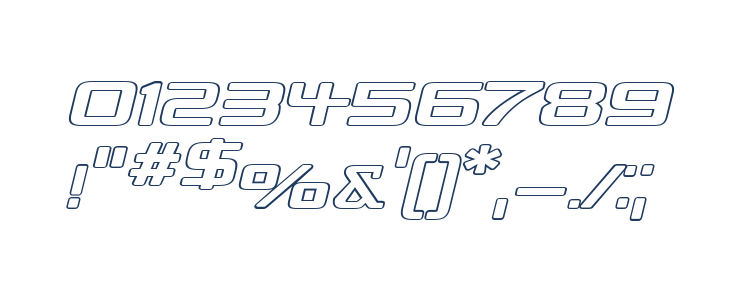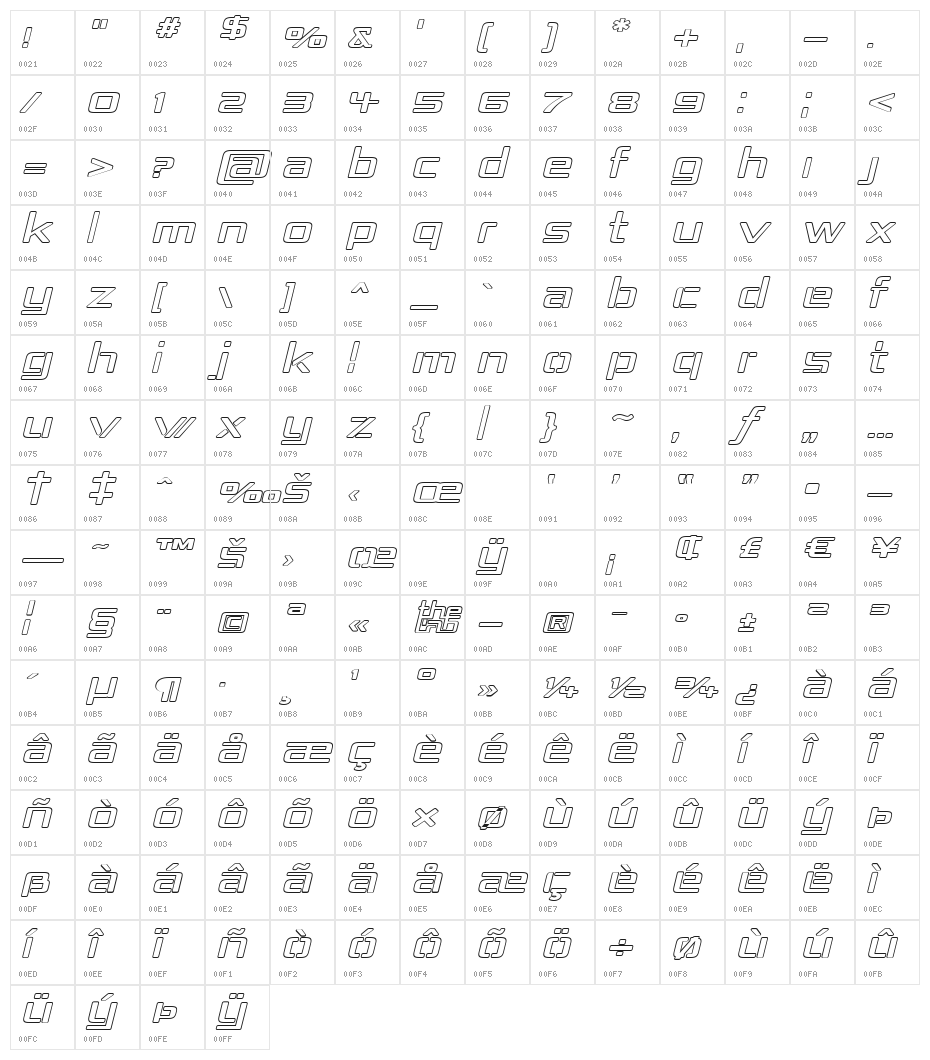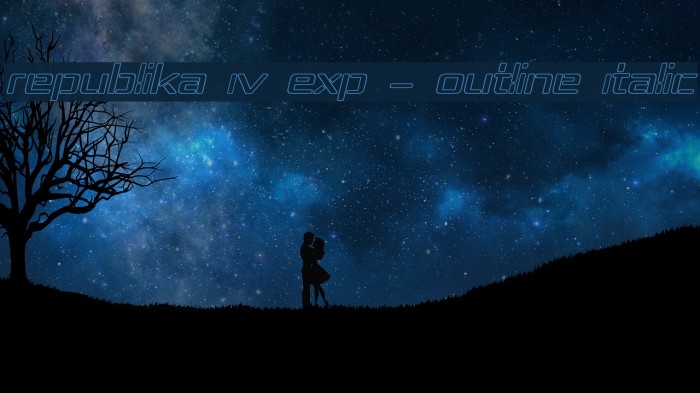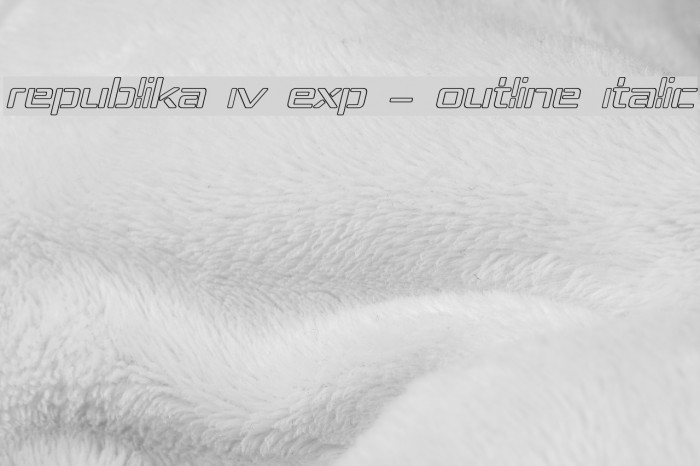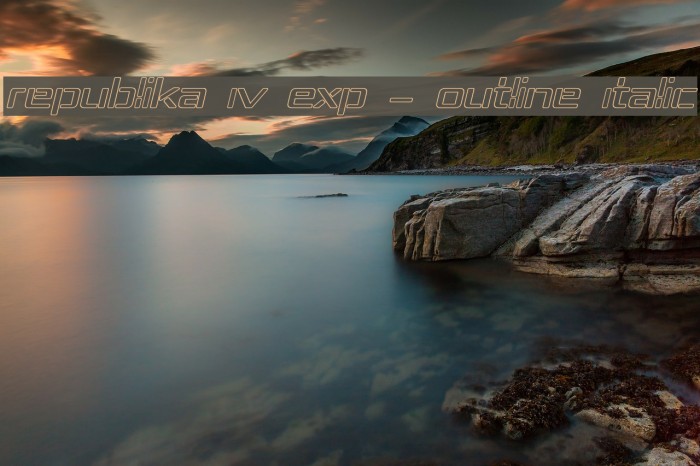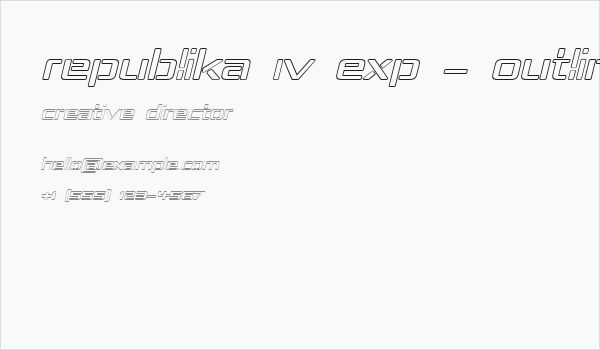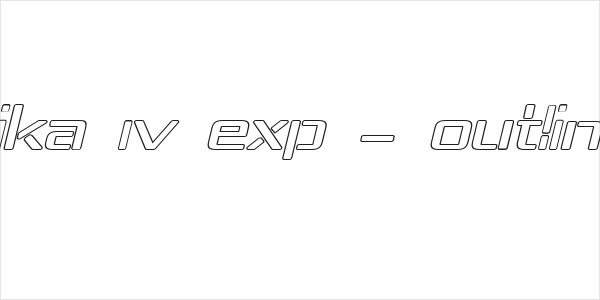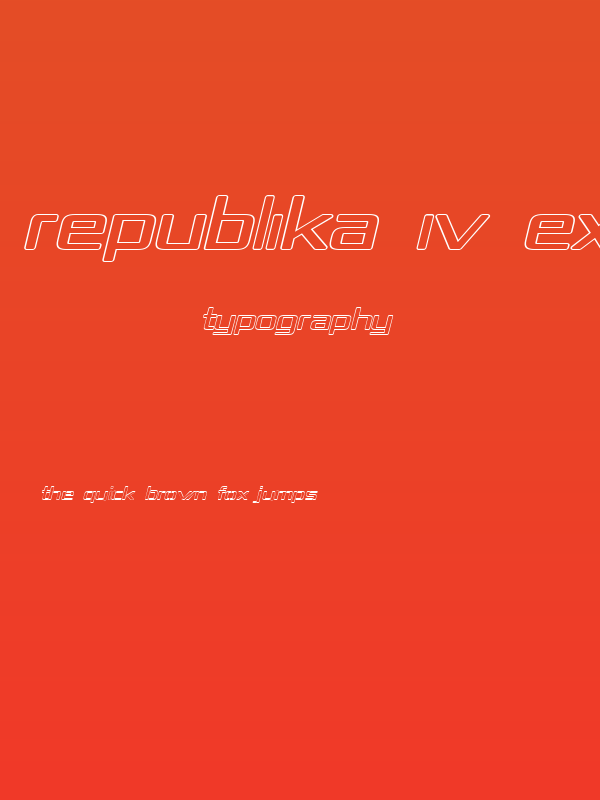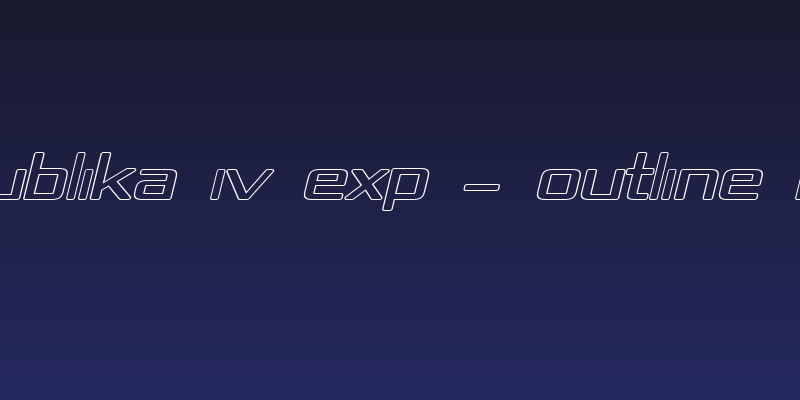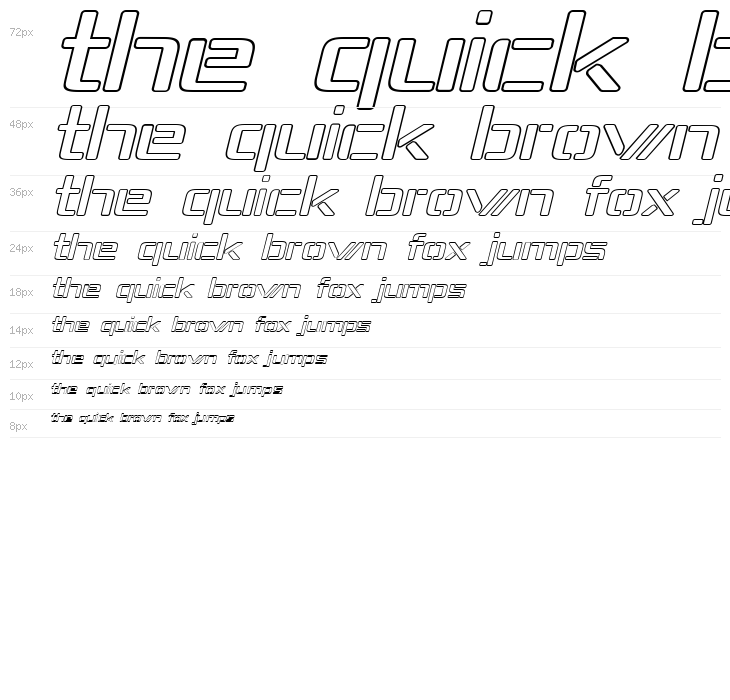
Republika IV Exp - Outline Italic Font
Republika IV Exp - Outline Italic Description
This font features a modern, futuristic design with an outline style that gives it a unique, airy appearance. The characters are italicized, adding a dynamic and forward-leaning aesthetic. The expanded width of the letters enhances readability while maintaining a sleek, contemporary look. The font's geometric shapes and clean lines make it suitable for projects that require a cutting-edge, technological feel. Its distinct outline style ensures that it stands out in any design, making it ideal for attention-grabbing headlines or logos.
| Proposed Projects | Ideal for technology branding, futuristic posters, sci-fi book covers, and innovative product packaging. |